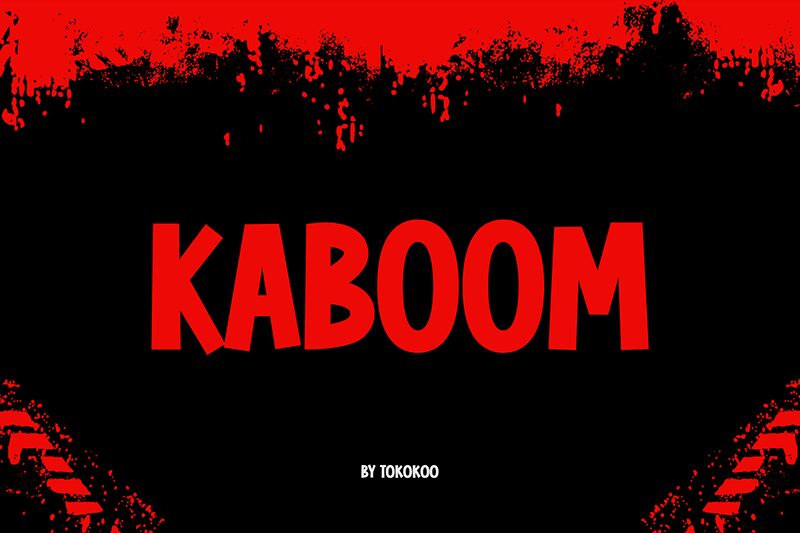
KABOOM
Unleash your inner child and give your designs the fun factor they deserve with Kaboom. We’ve all seen those catchy cartoons and comics with bold texts, well this is your chance to add the same element to your posters, banner designs, t-shirt designs, cartoons, and comics with this super cute, playful font by Tokokoo Studio. The set consists of basic uppercase letters, numerals, and punctuations that will look outstanding in any setting and will bring smiles to those who see your designs.